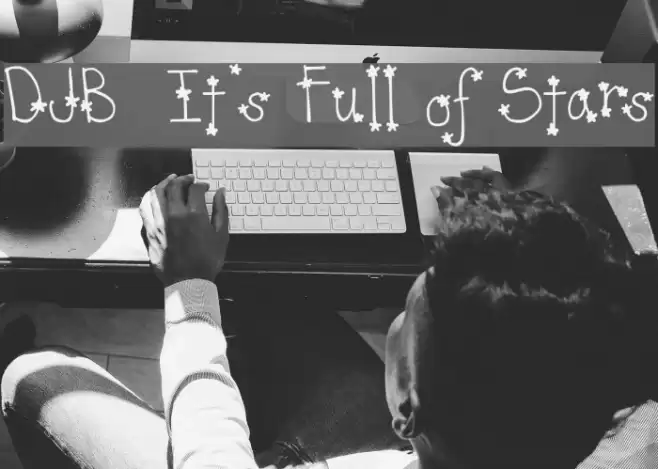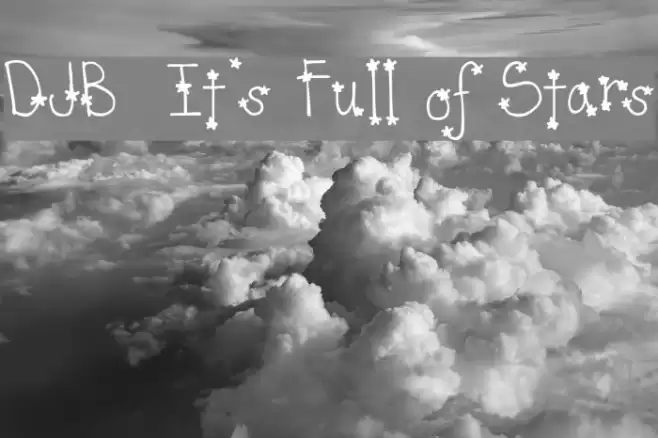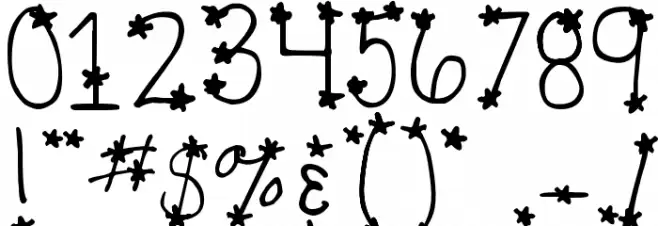
DJB It's Full of Stars Font
DJB It's Full of Stars Description
This whimsical and playful font features a unique design where each character is adorned with star-like embellishments. The letters have a hand-drawn, casual feel, with uneven strokes that add to its charm. The stars are integrated into the structure of the letters, creating a fun and engaging visual effect. This font is perfect for projects that require a touch of creativity and imagination, such as children's books, party invitations, or playful branding. Its distinct style makes it stand out, offering a delightful and imaginative experience.
A whimsical, star-adorned font with a playful, hand-drawn style from Uncategorized fonts.
- Proposed Projects: Ideal for children's books, party invitations, playful branding, and creative projects.
- Overall Style: Playful, Whimsical
- Use Case: Headlines, Logos, Invitations